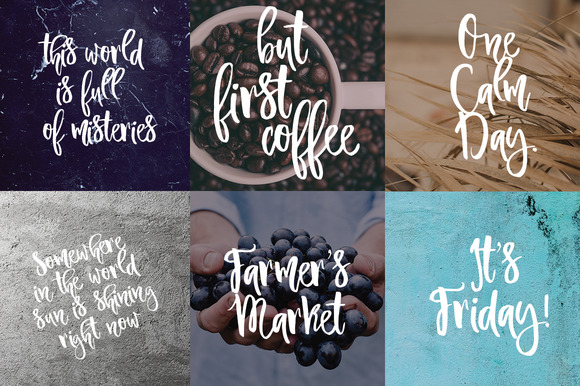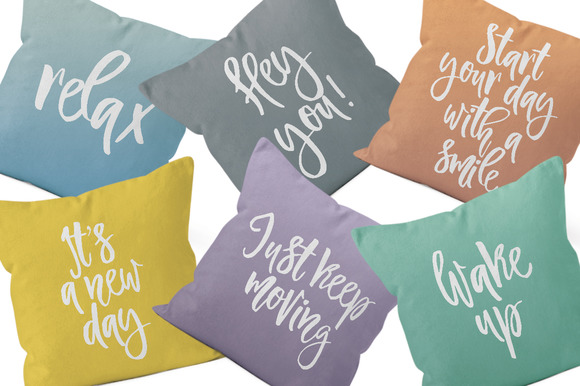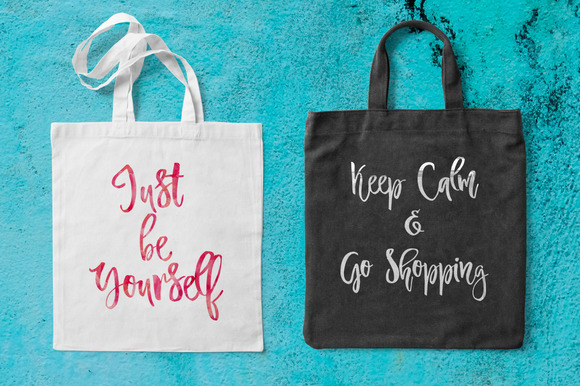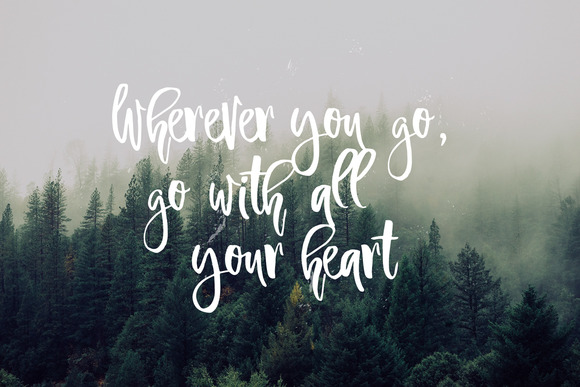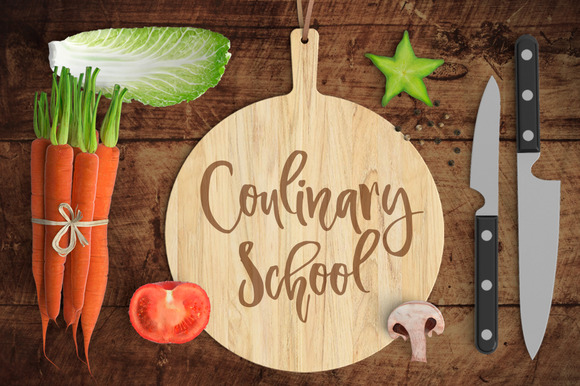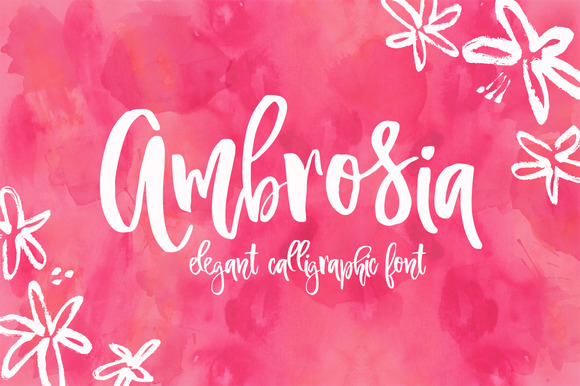
Introducing Ambrosia Script Font: Elevate Your Designs with Elegant Handwritten Calligraphy
In the world of typography, few fonts manage to capture the essence of personal touch and elegance as beautifully as Ambrosia Script. This stunning handwritten calligraphy-style script font is designed to bring a touch of sophistication and warmth to any design project. With its unique dancing baseline and smooth, clear hand-drawn appearance, Ambrosia Script is the perfect choice for designers and crafters looking to add a personal flair to their work.
The Characteristics of Ambrosia Script Font
Ambrosia Script is distinguished by its elegant, flowing lines and a dancing baseline that gives it a dynamic, lively feel. This characteristic makes it stand out from more traditional fonts and adds a level of personality to any text it’s used for. The font’s hand-drawn nature ensures that each letter and word has a unique, human touch that is often lost in more uniform typography.
One of the key features that make Ambrosia Script so versatile and appealing is its readability. Despite its elegant and cursive nature, the font remains clear and easy to read, making it suitable for a wide range of applications, from wedding invitations and event branding to blog headings and social media graphics.
Uses of Ambrosia Script Font
The versatility of Ambrosia Script font makes it a valuable addition to any designer’s toolkit. Here are some of the many ways you can use Ambrosia Script to elevate your designs:
- Wedding and Event Stationery: Create beautiful, bespoke wedding invitations, save-the-date cards, and event programs that set the tone for an elegant and memorable occasion.
- Branding and Packaging: Add a touch of luxury and personality to your brand’s packaging and marketing materials. Ambrosia Script’s unique charm can help your brand stand out in a crowded marketplace.
- Blog and Social Media Graphics: Enhance your blog posts, social media graphics, and website headers with elegant headings and titles that draw readers in and add a personal touch to your content.
- Art and Craft Projects: Whether you’re creating handmade cards, scrapbooking pages, or DIY craft projects, Ambrosia Script can add a beautiful, professional finish to your work.
Why Choose Ambrosia Script Font?
With so many fonts available to designers and crafters, what sets Ambrosia Script apart? Here are a few reasons why Ambrosia Script should be your go-to choice for adding elegance and personality to your designs:
- Unique and Eye-Catching: Ambrosia Script’s dancing baseline and hand-drawn appearance make it instantly noticeable and memorable.
- Versatile: Suitable for a wide range of projects, from formal events to digital content and craft projects.
- Easy to Read: Despite its elegant nature, Ambrosia Script remains clear and easy to read, making it practical for use in various contexts.
- Personal Touch: Adds a level of warmth and personality to your designs that is hard to achieve with more traditional fonts.
| Font Name | Ambrosia Script Font |
| Author | Favete Art |
Ambrosia Script font is a beautiful, elegant, and versatile addition to any designer’s or crafter’s toolkit. Its unique blend of handwritten charm and readability makes it perfect for a wide range of applications, from professional branding and event stationery to personal art and craft projects. By incorporating Ambrosia Script into your designs, you can add a personal touch that sets your work apart and leaves a lasting impression on your audience.
Whether you’re a seasoned designer looking for a font that can add elegance and personality to your projects, or a crafter seeking to enhance your handmade creations with beautiful typography, Ambrosia Script is an excellent choice. Its ability to bring a touch of sophistication and warmth to any design makes it a valuable asset for anyone looking to elevate their work.